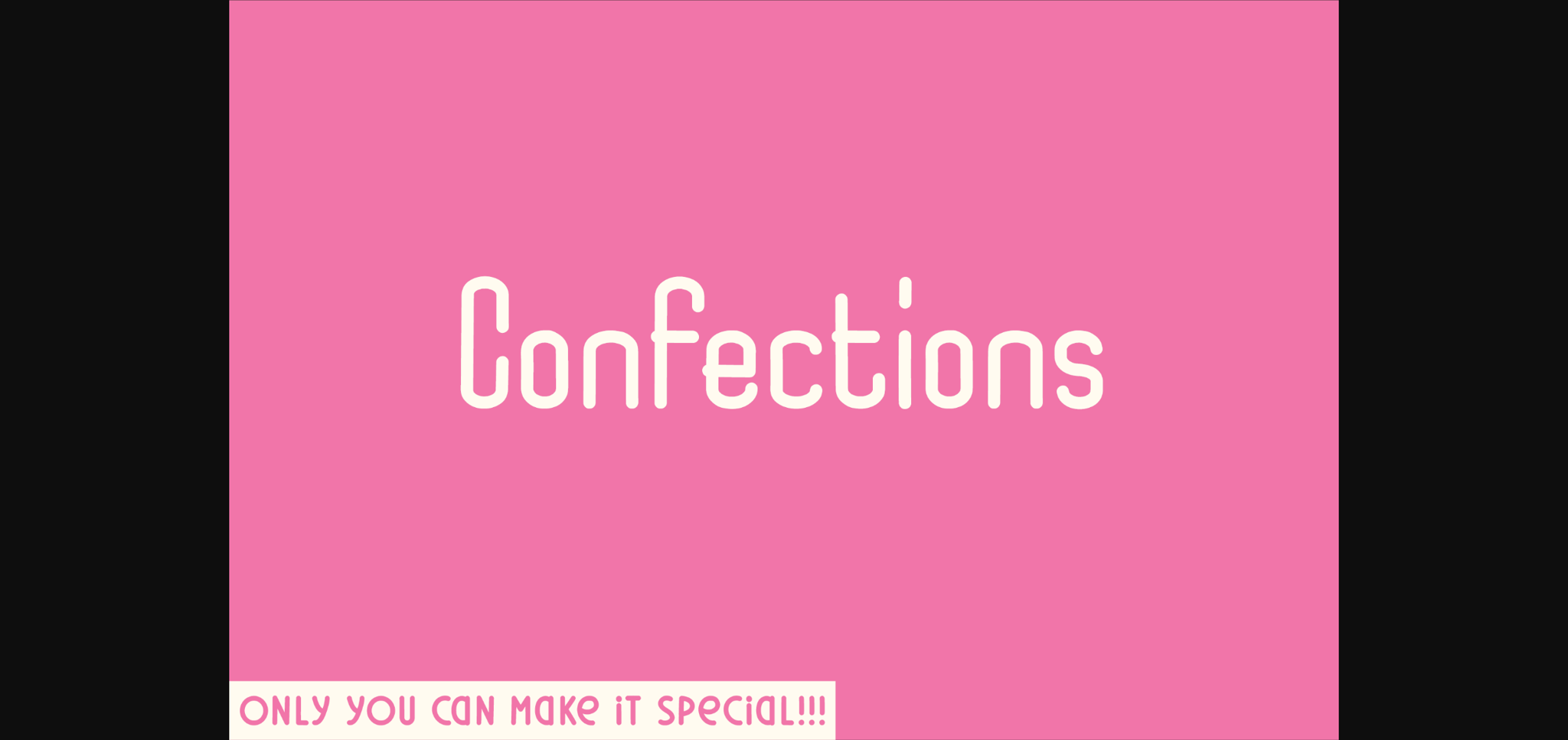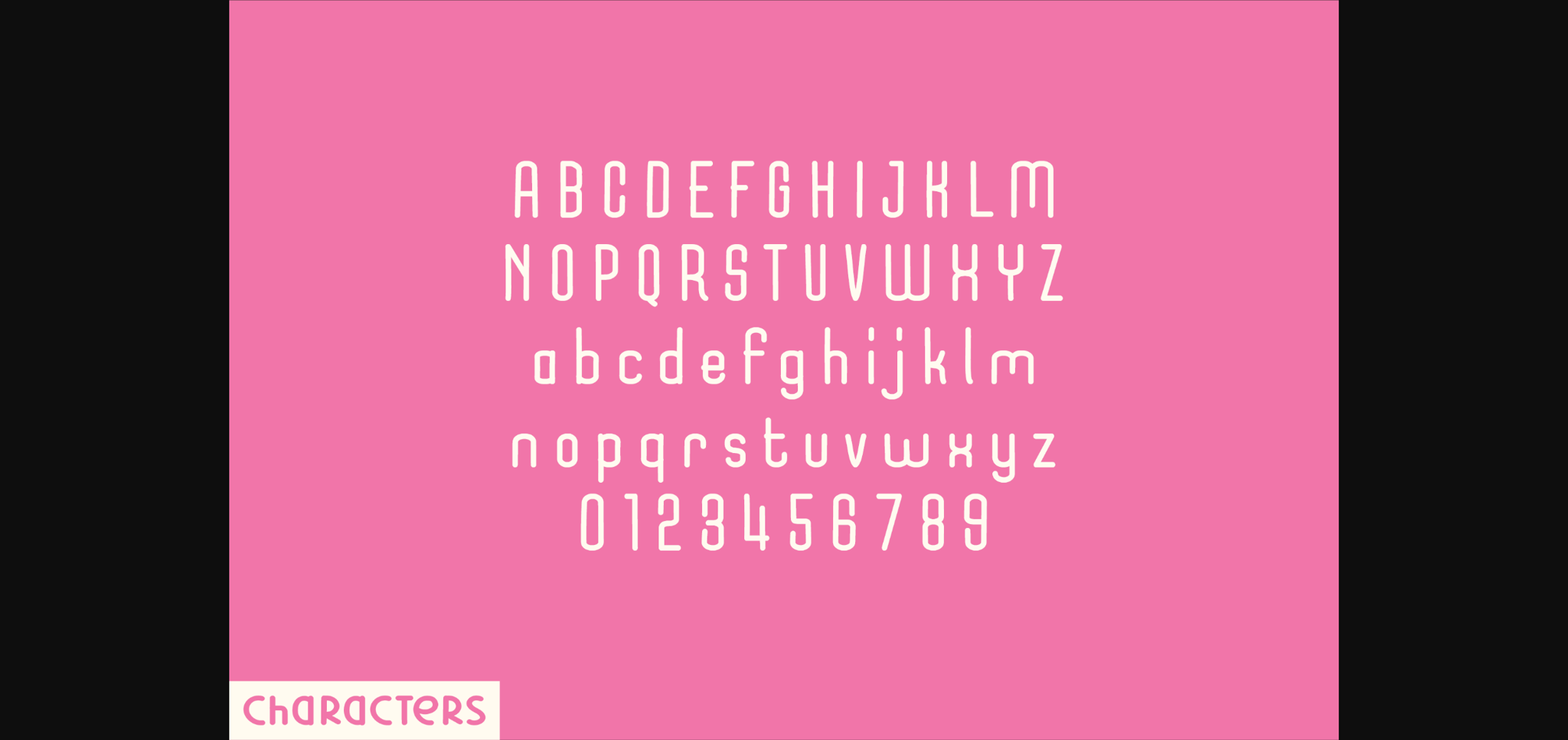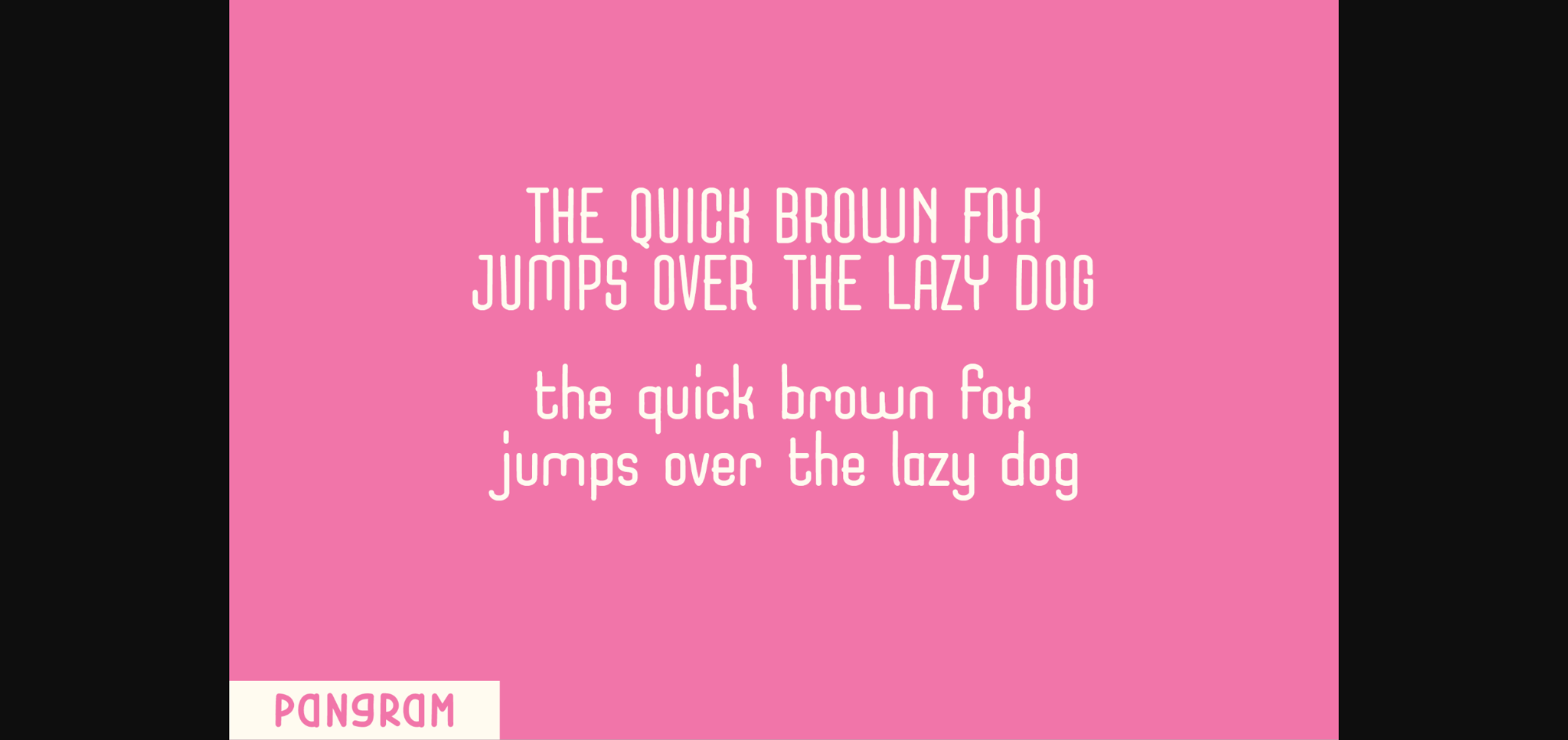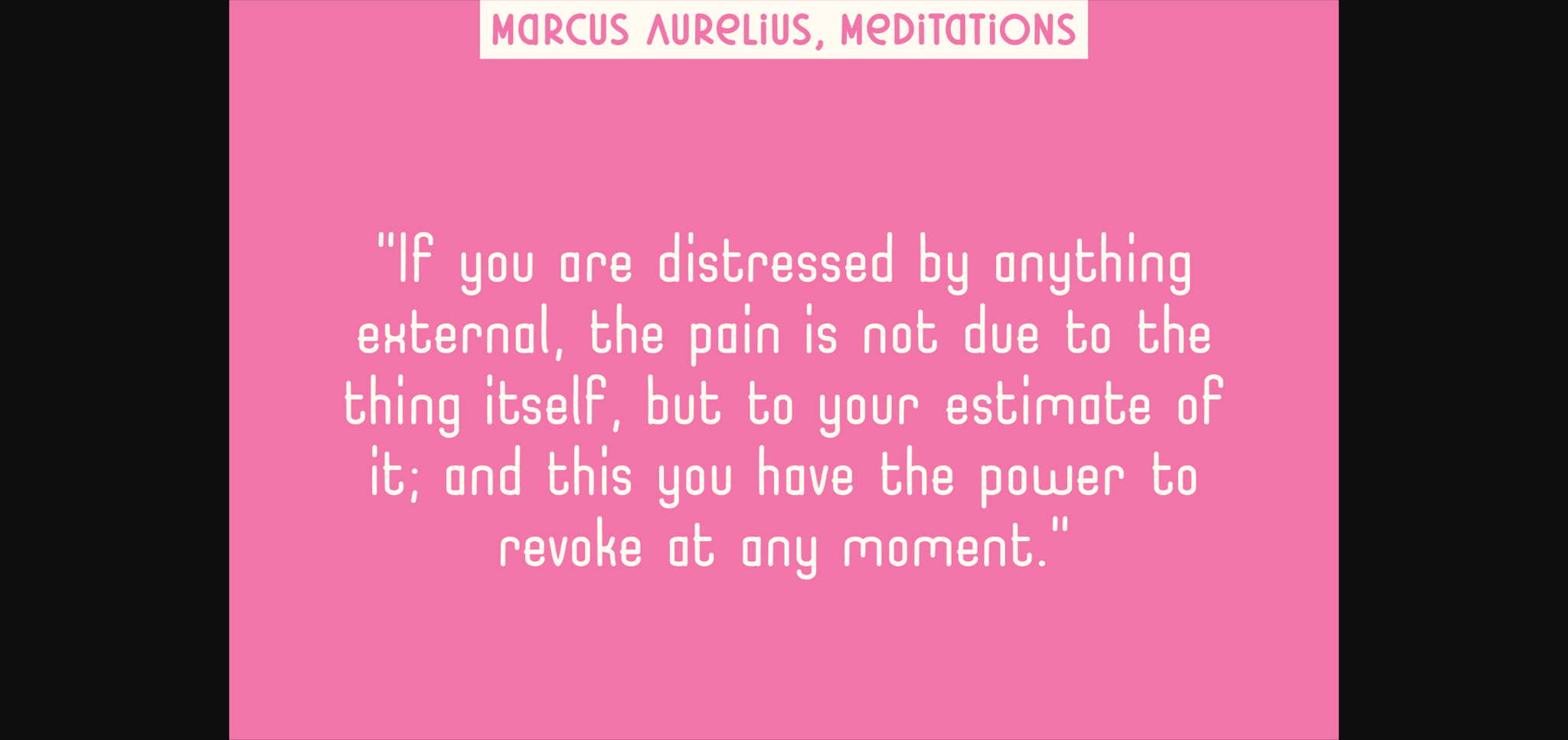
About Confections Font
Introducing Confections, an engaging, handwritten sans serif font that effortlessly combines upper and lower case, numerical, and functional letter designs. Each character in this font is meticulously crafted with a standard finish, lending an amiable yet resolute impression. Embrace the striking uniqueness of Confections, perfect for injecting a touch of individuality to all your designing endeavours.